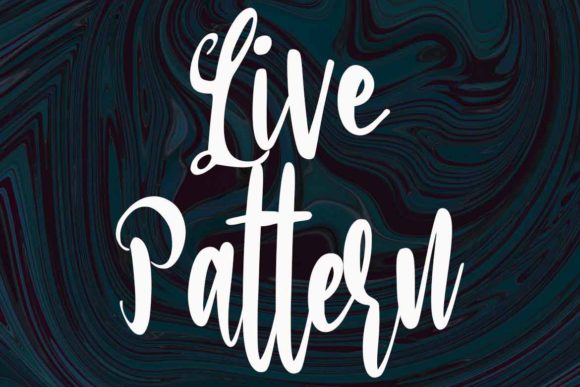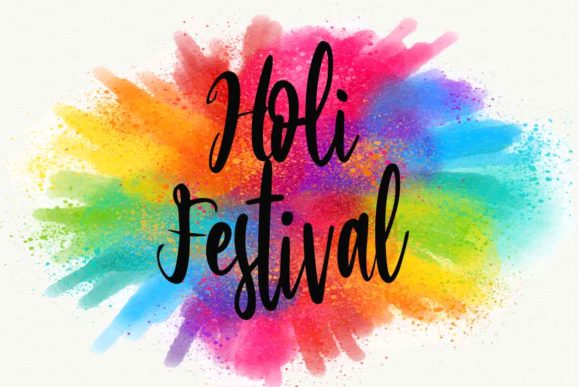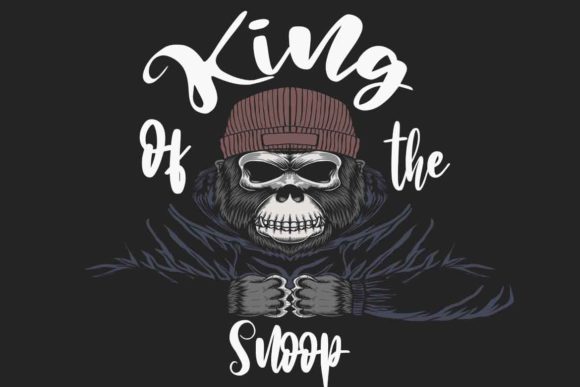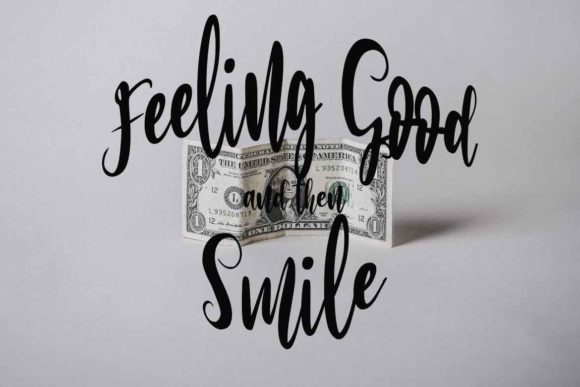
Snoop City Font
About Snoop City Font
Snoop City is a flowing handwritten font, described by an elegant touch, perfect for your favorite projects. Fall in love with its incredibly distinct and timeless style and use it to create spectacular designs!